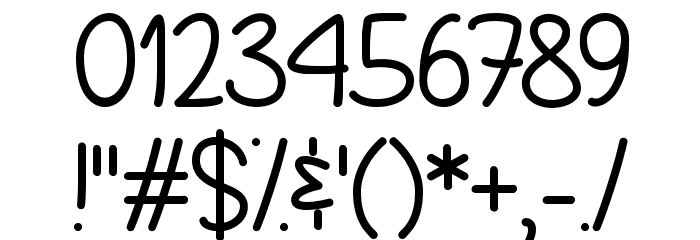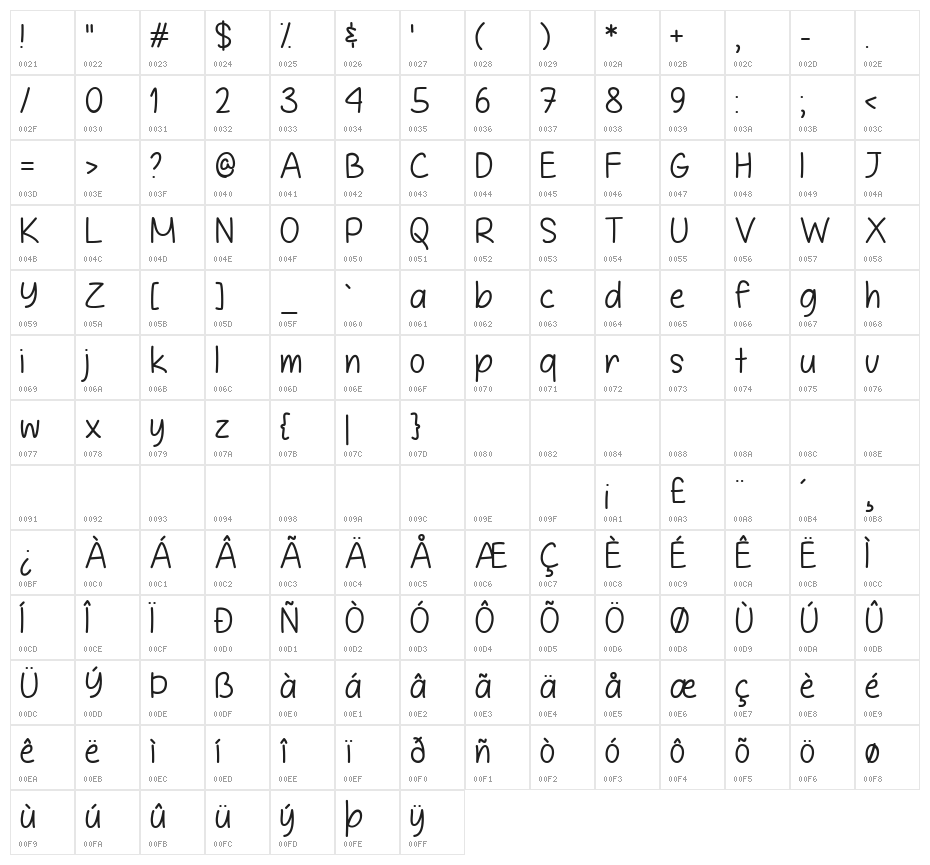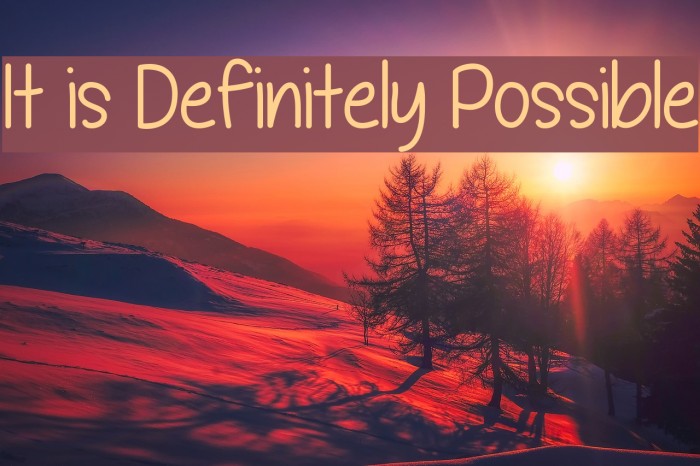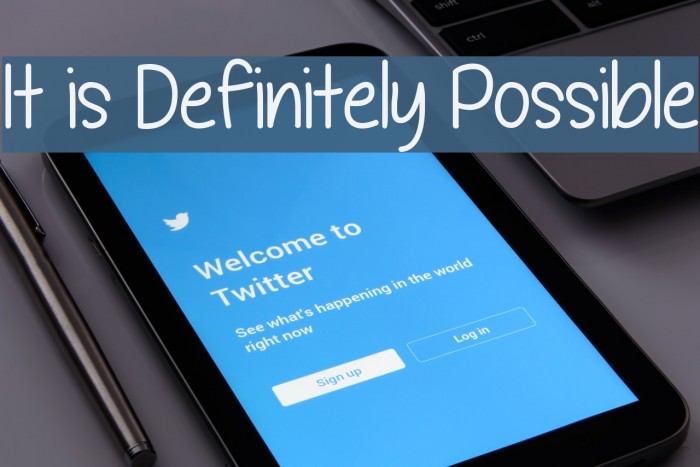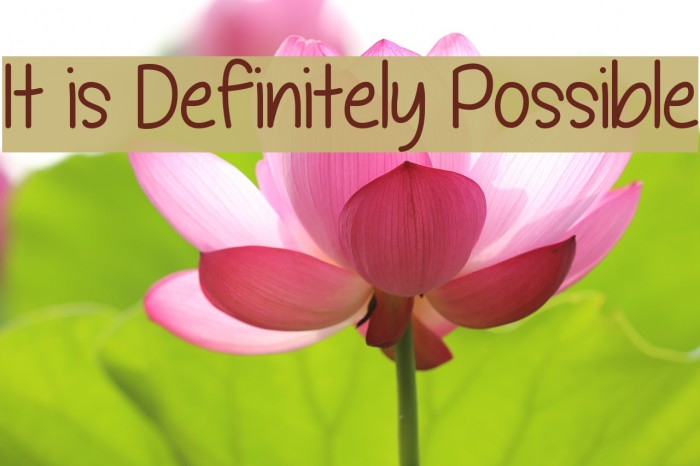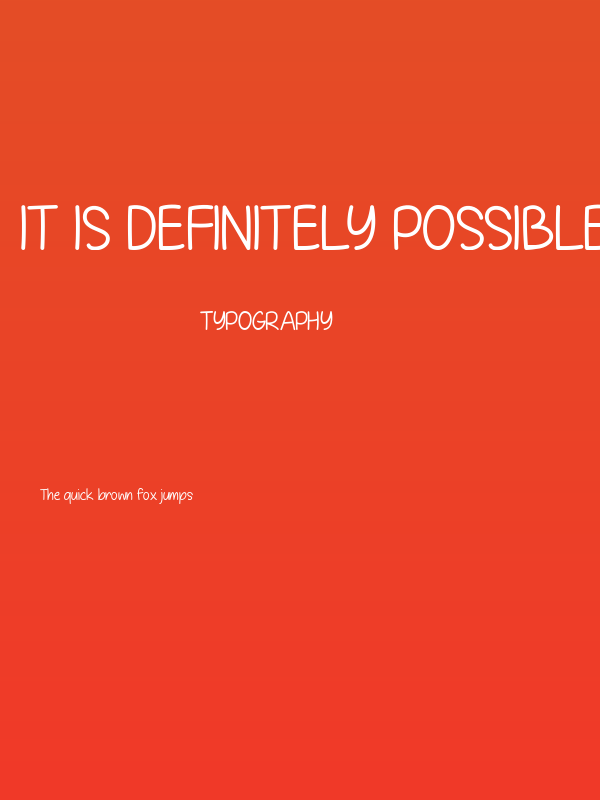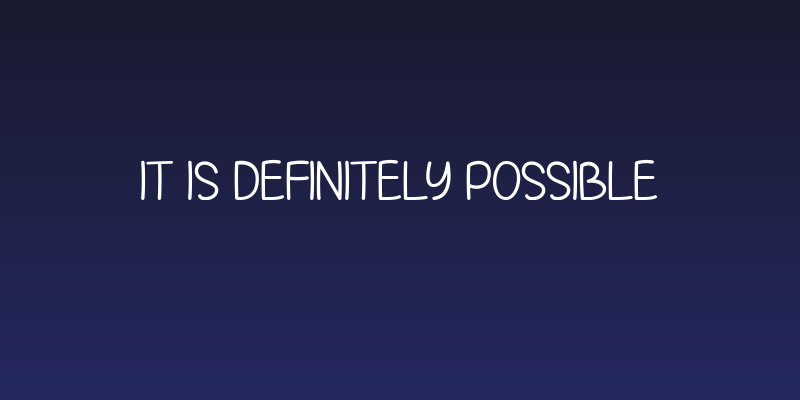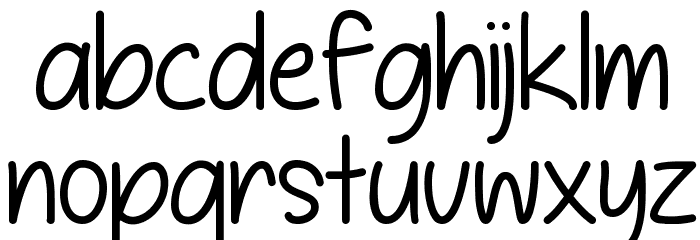
It is Definitely Possible Font
It is Definitely Possible Description
This font features a playful and casual handwritten style, characterized by smooth, rounded strokes and a friendly appearance. The letters are slightly irregular, giving it an organic and approachable feel. The uppercase and lowercase letters maintain a consistent style, with a slight slant that adds to the informal vibe. The numerals and special characters are designed to match the overall aesthetic, ensuring a cohesive look across all text elements. This font is ideal for projects that require a personal touch, such as greeting cards, invitations, or children's books. Its legibility and charm make it suitable for both digital and print media.
| Proposed Projects | Ideal for greeting cards, invitations, children's books, and personal branding. |